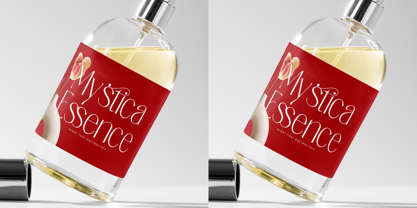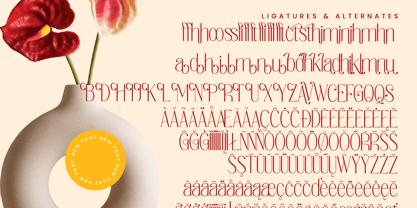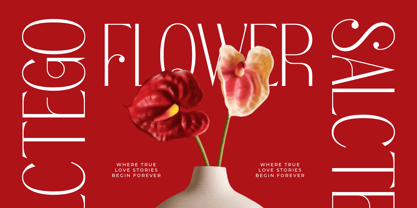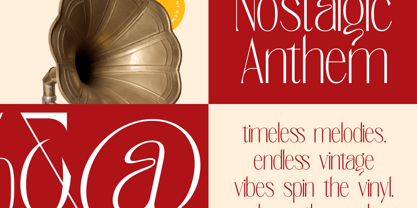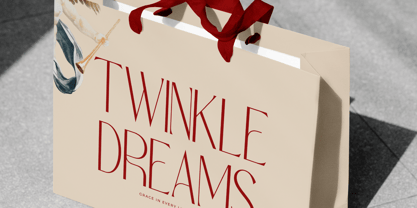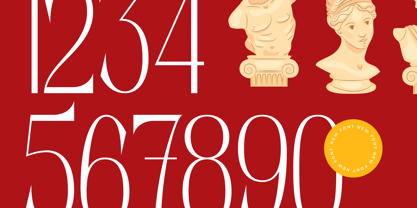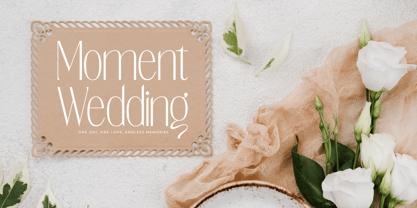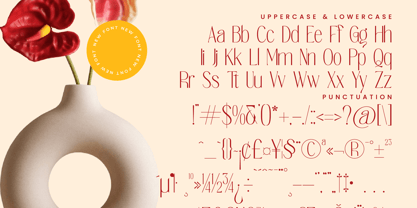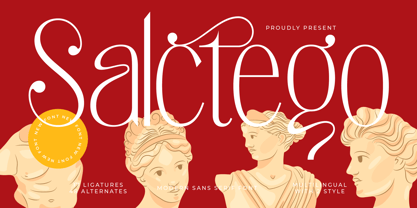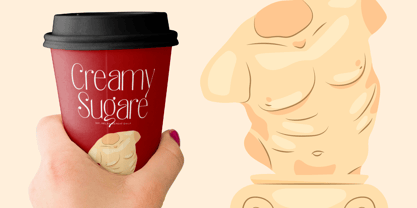
Salctego
The Salctego Font Family was designed by Heru Utama Putra and published by Timelesstype Studio. Salctego contains 2 styles and family package options. More about this family
Salctego - Modern Sans Serif Font , Suitable for any projects such as: logos, branding projects, homeware designs, product packaging, mugs, quotes, posters, shopping bags, t-shirts, book covers, name card, invitation cards, greeting cards, label, photography, watermark, special events, and all your other luxury and beautiful projects that need a Luxury Serif taste.